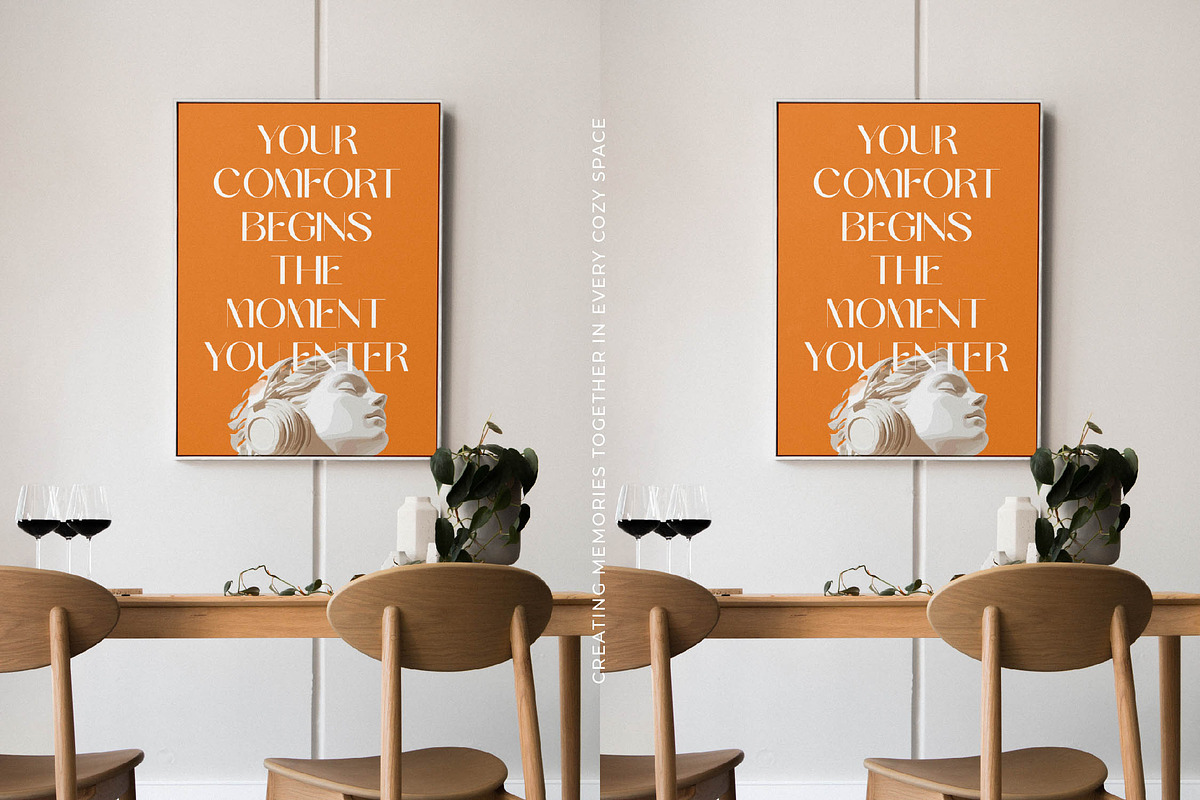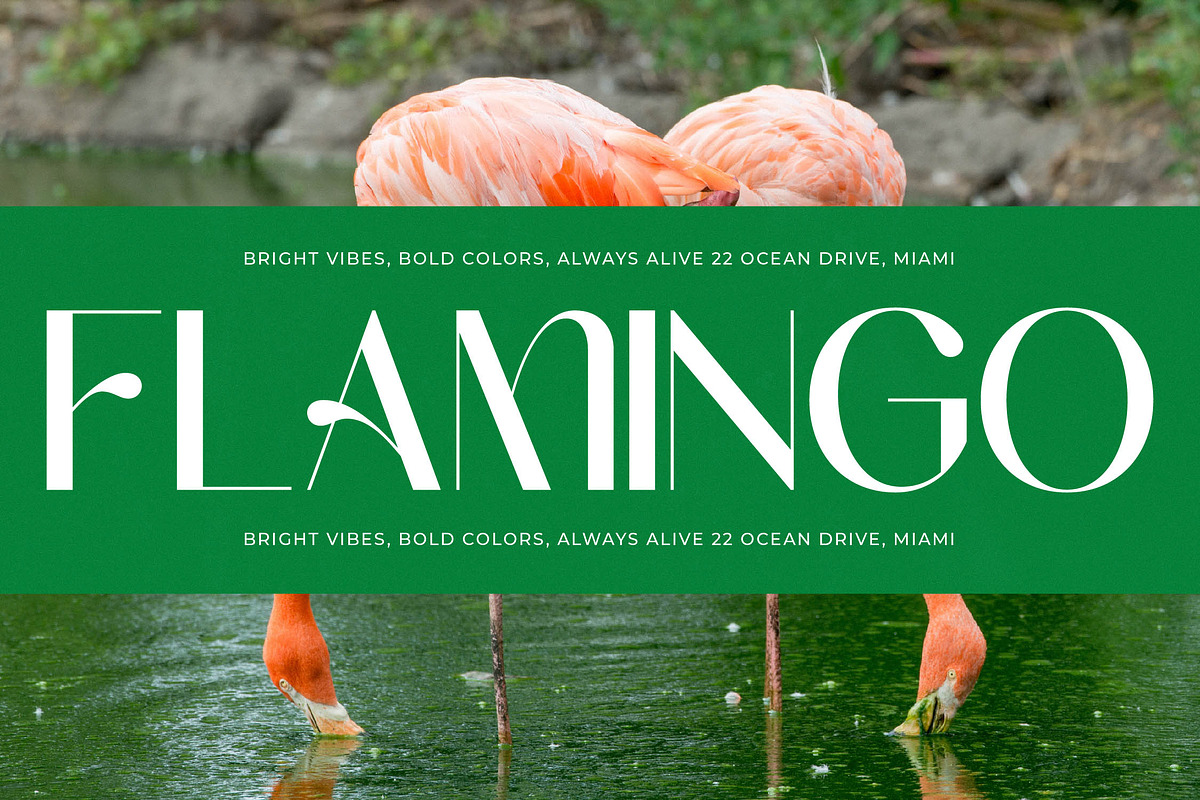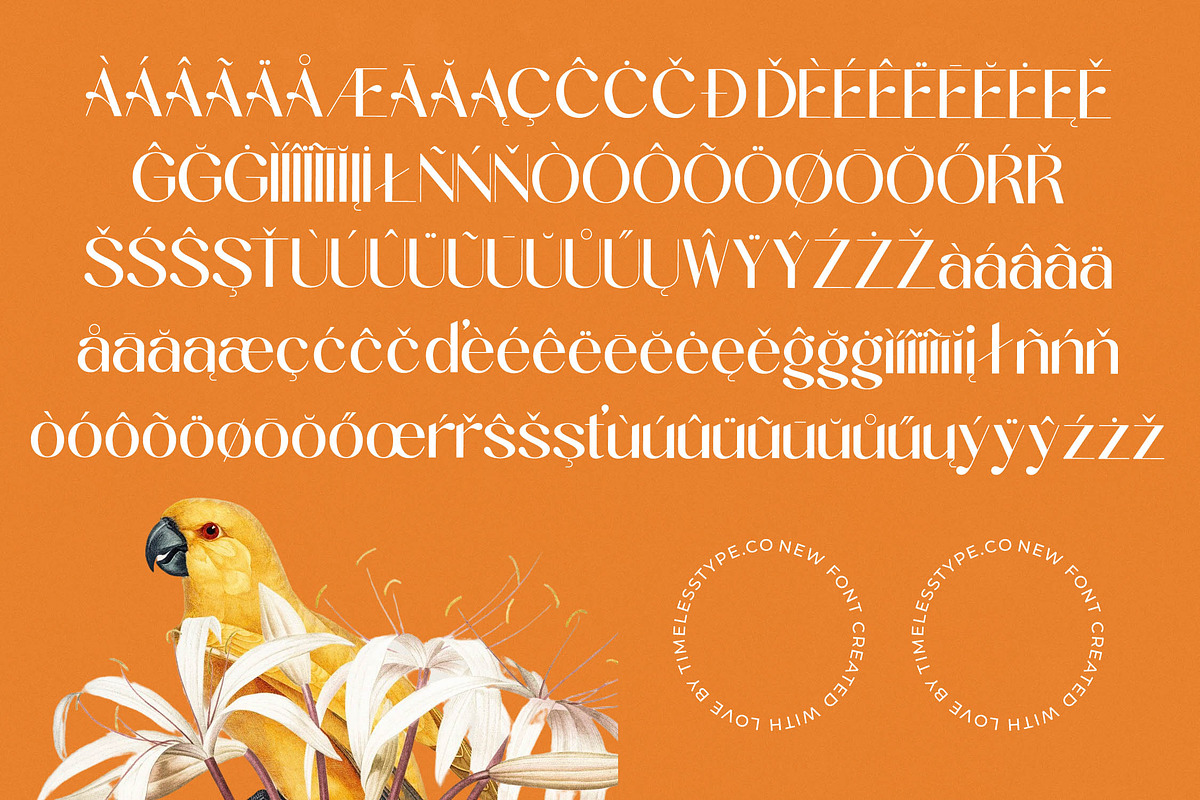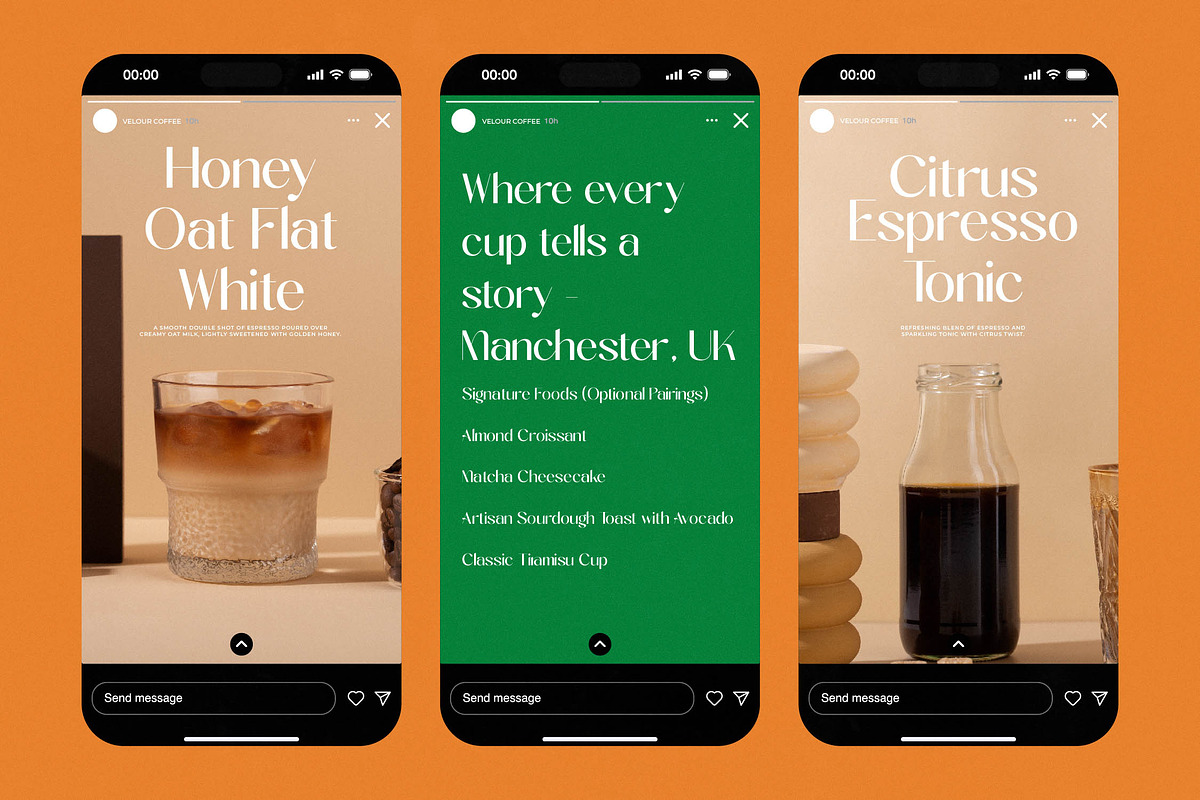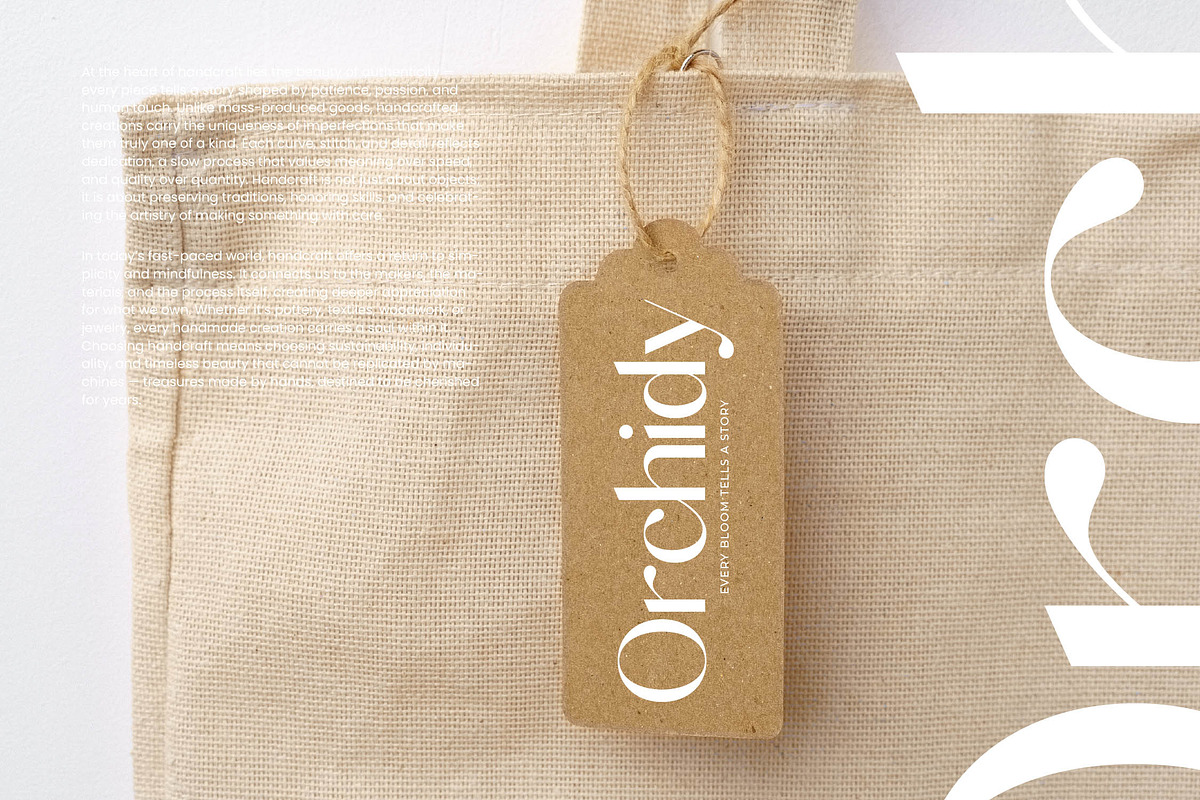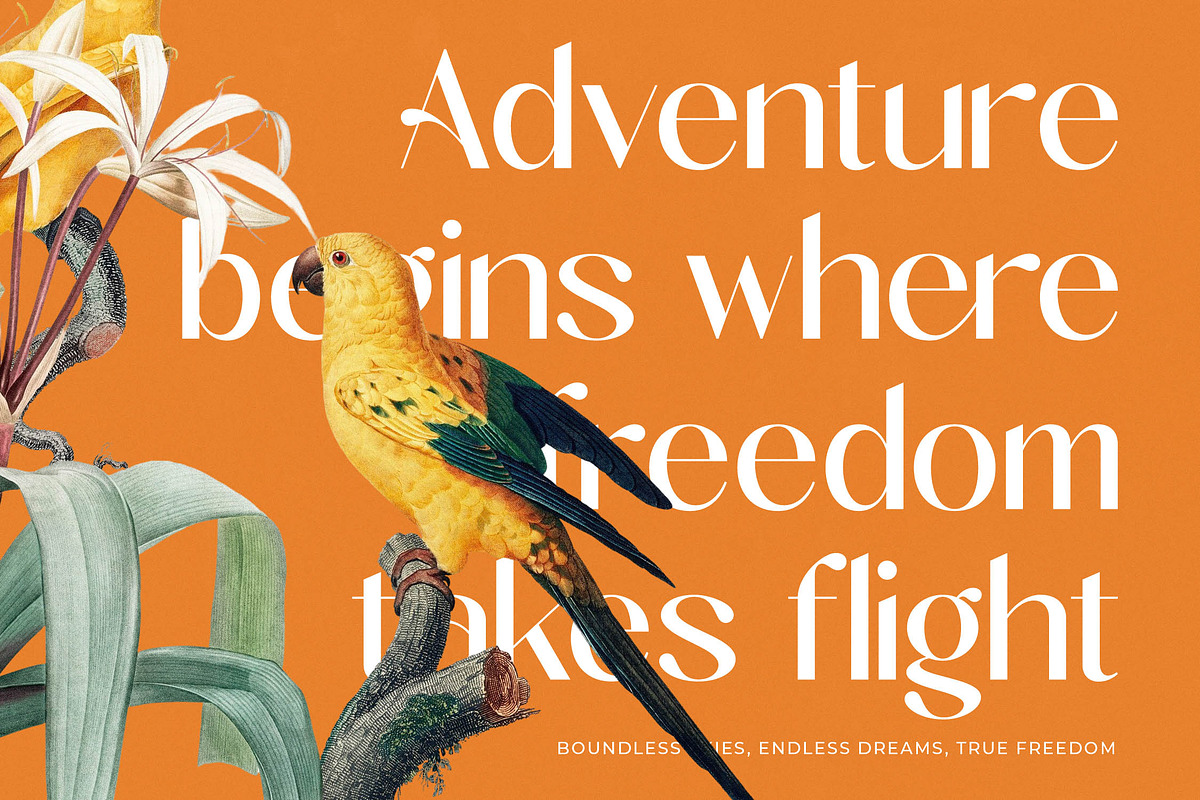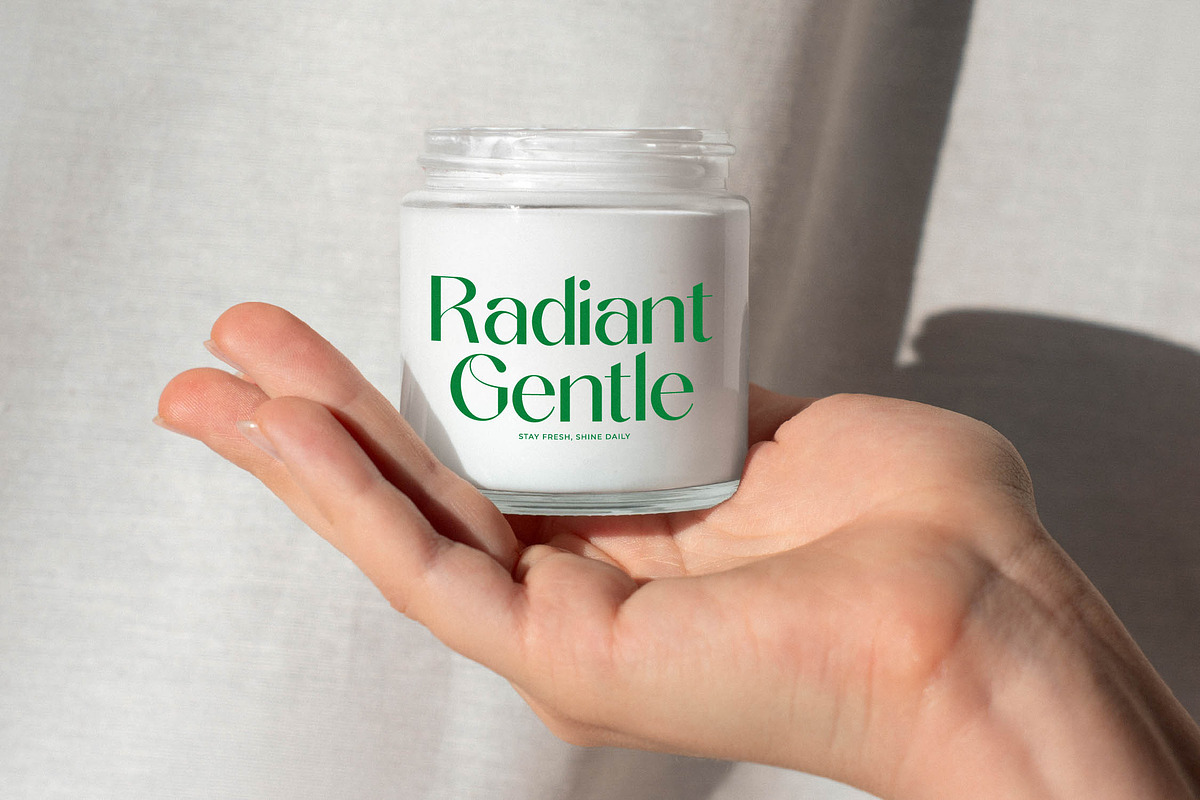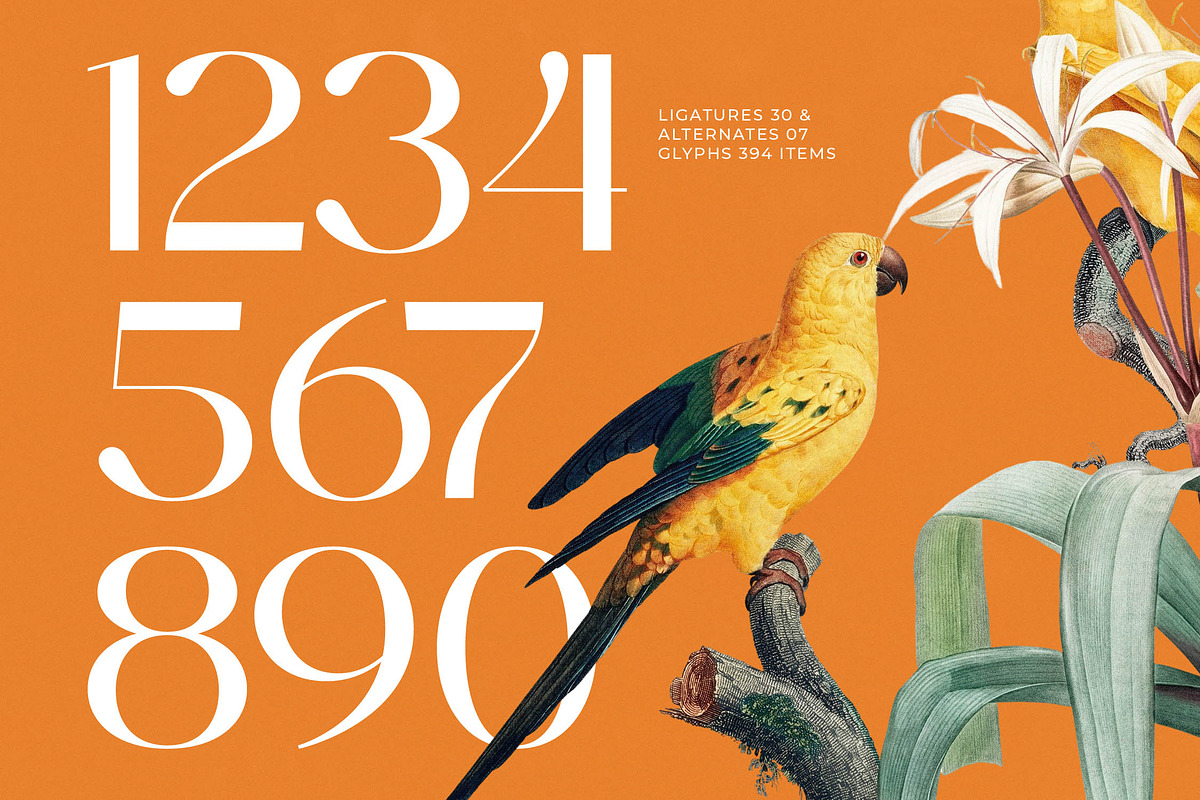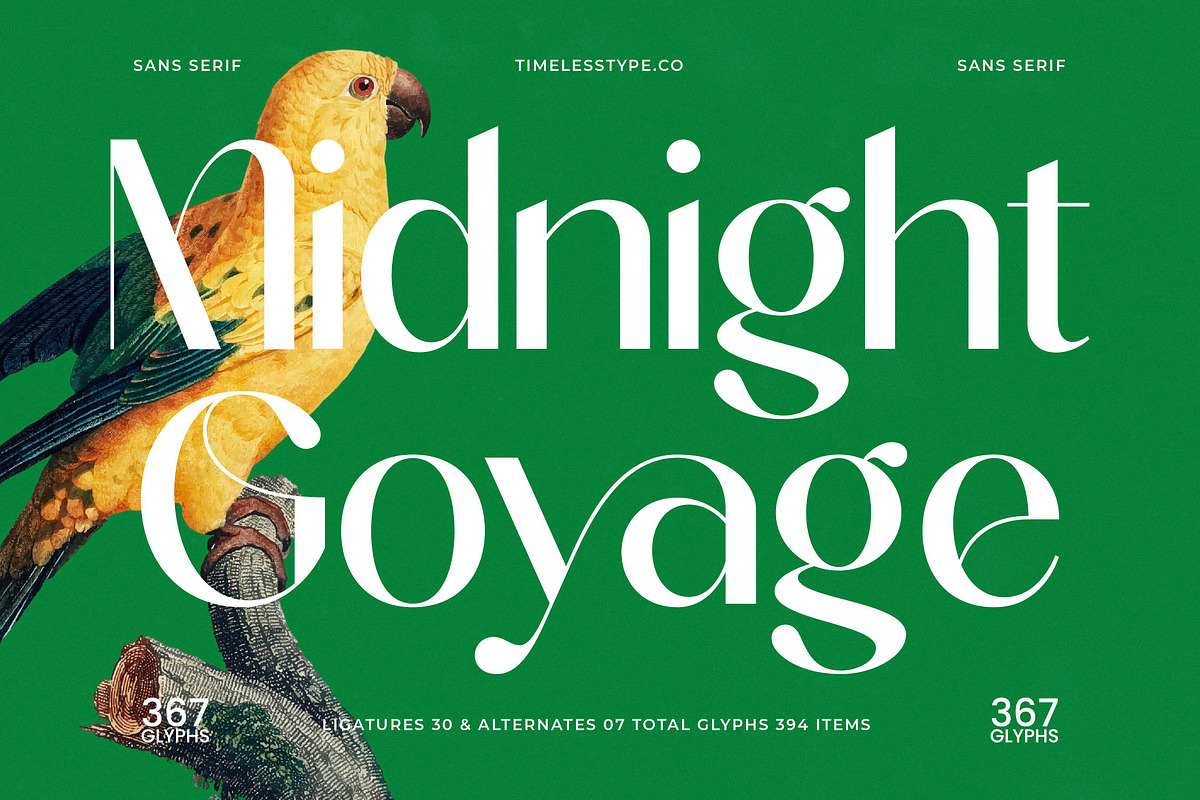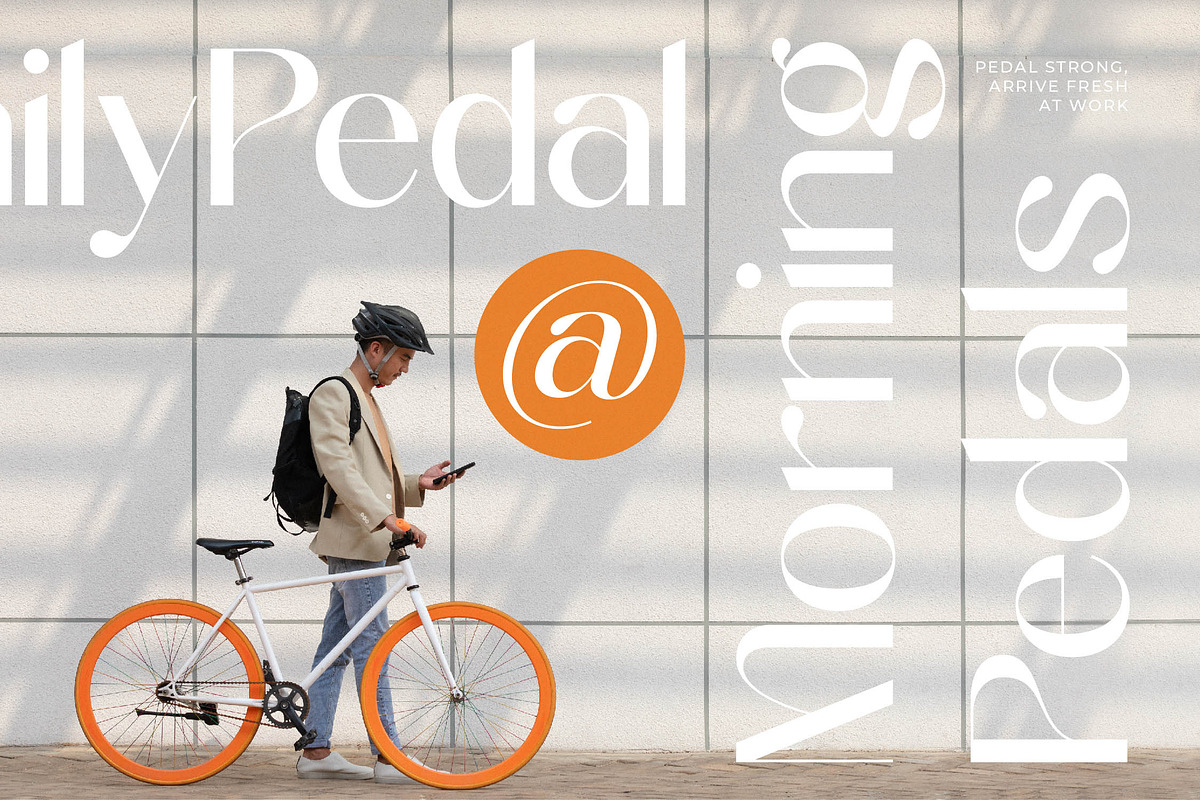
Midnight Goyage Modern Sans Serif
Midnight Goyage is a breathtaking masterpiece of typographic elegance, blending sharp precision with a soul-stirring organic grace. It stands as a beacon of sophisticated design, ready to transform any canvas into a high-end visual experience.
Inspired by the intersection of vintage botanical illustrations and the sharp aesthetics of mid-century fashion magazines, this font captures a timeless tropical-luxe atmosphere. Its letters feel like they belong in a sun-drenched atelier or a lush, moonlit garden where every detail matters.
This modern serif display typeface exudes an unparalleled luxury typography vibe that demands attention through its high-contrast serif forms. It is the ultimate editorial font for designers who need to make a massive branding impact with minimal effort and maximum style.
Tapping into the current modern serif trend, this typeface brings a fresh perspective to editorial display fonts that prioritize unique silhouettes. It is a quintessential example of character-driven typography that stays ahead of fast-moving aesthetic shifts in the creative industry.
Perfectly suited for high-end logo design and comprehensive branding projects, its versatile nature shines in editorial layouts and luxury packaging. It is also a stunning choice for wedding invitations and high-street fashion campaigns that require a touch of class.
The set is packed with over 30 ligatures and unique alternates that allow for custom-tailored headlines and wordmarks. It offers full multilingual support and a wide range of international characters, ensuring your message reaches a global audience with optional swashes for added flair.
- Ligature 30 Alternate 07